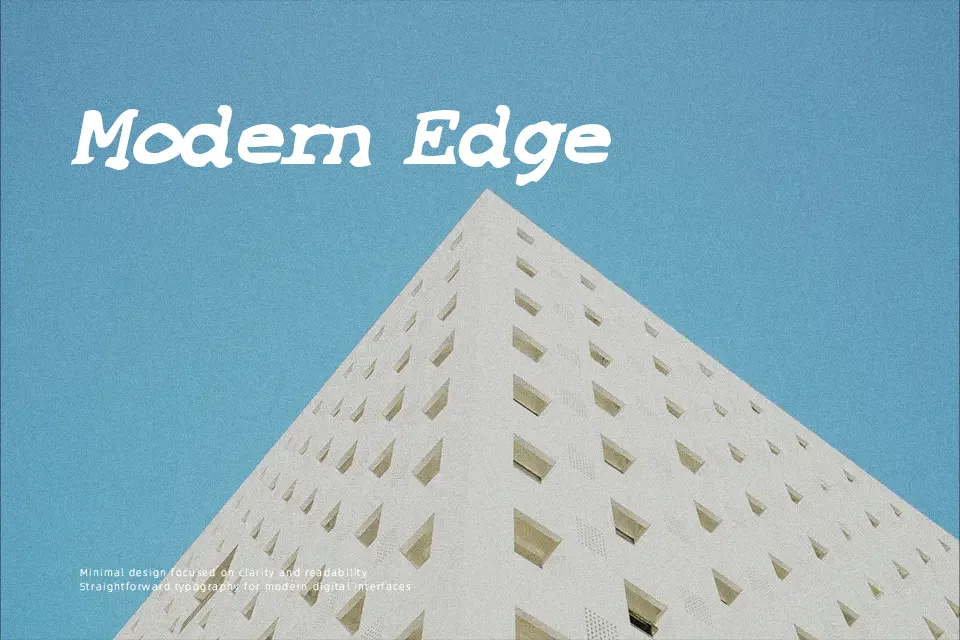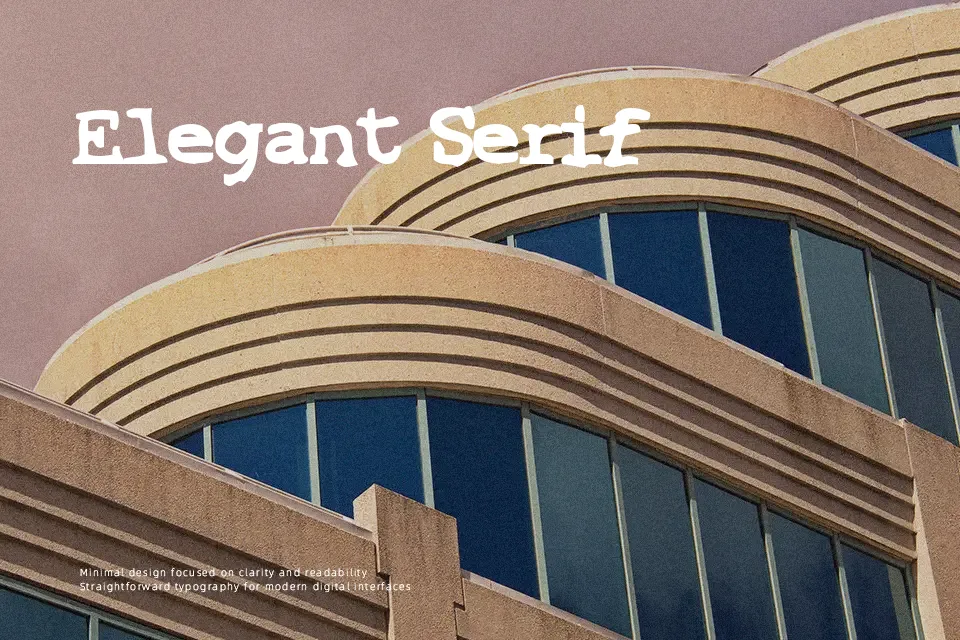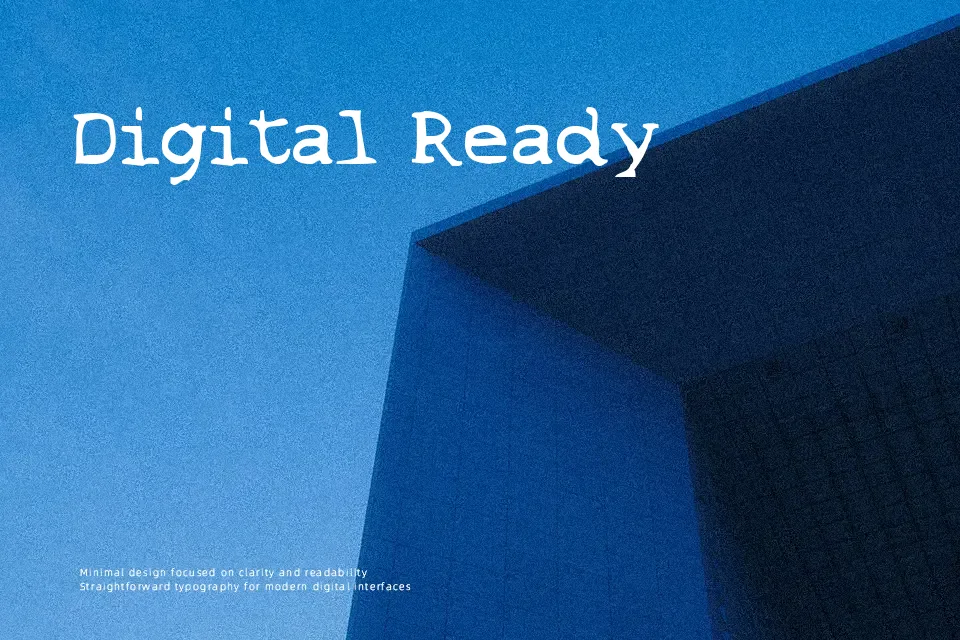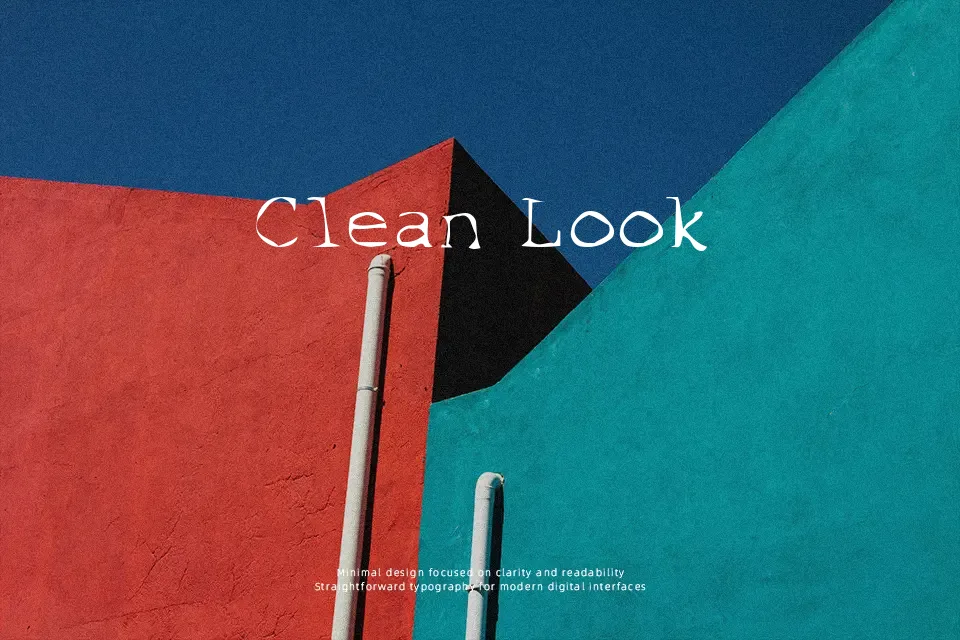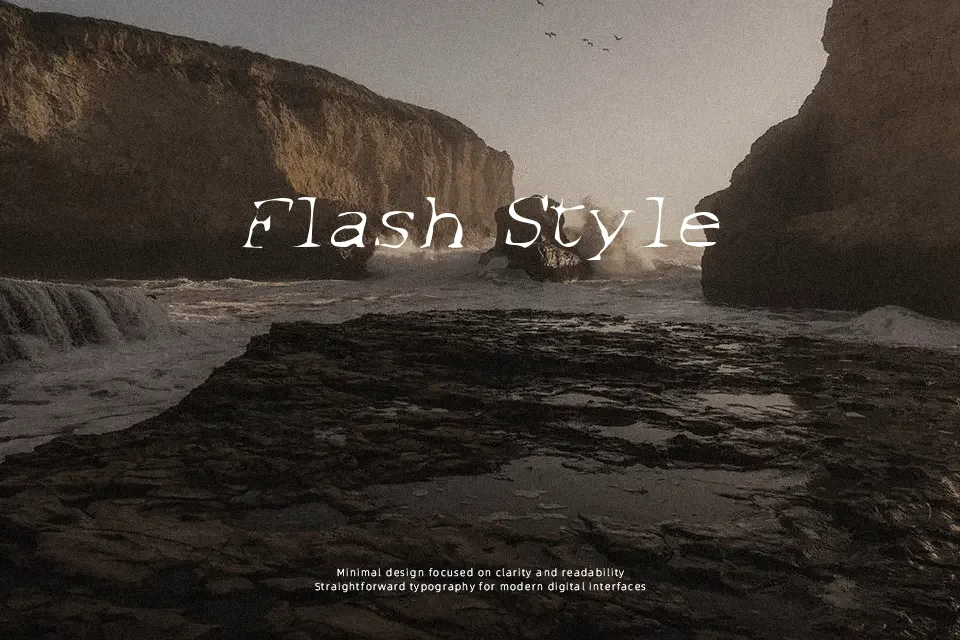
SF Espionage Font
Designed by ShyFonts
SF Espionage Font presents a mechanical typewriter construction marked by sturdy slab serifs, low stroke contrast, and uniform character proportions. Evenly distributed spacing and balanced apertures provide clear letter identification across medium display sizes and title sequences. The typeface excels in stylized editorial graphics, vintage investigative dossiers, and atmospheric video game interface elements. The fixed-width proportions maintain reliable alignment in structured grids, though dense paragraphs can feel visually rigid during continuous reading. For optimal impact, the design works best when utilized for prominent headings, badge labels, and thematic subheaders rather than extensive blocks of running body copy.
– vintage dossier headlines
– themed video game menus
– retro poster titles
– editorial pull quotes
– dense novel body text
– formal corporate contracts
– mobile app body copy
Perfect for editorial, film, and gaming, with a retro and display style.